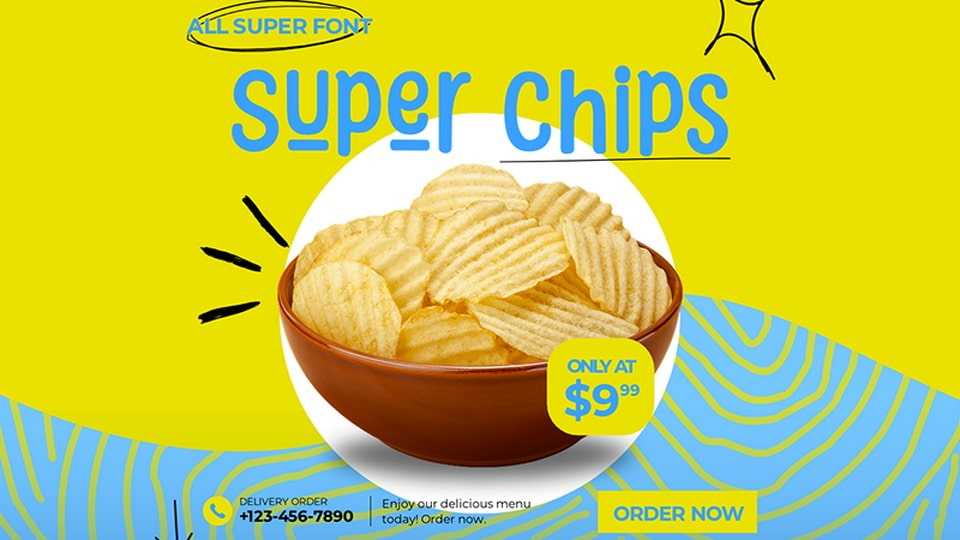
Download Super Chips font, a playful and quirky hand-drawn typeface that radiates creativity and fun. With its irregular shapes and lighthearted strokes, the font adds a joyful touch to any project.